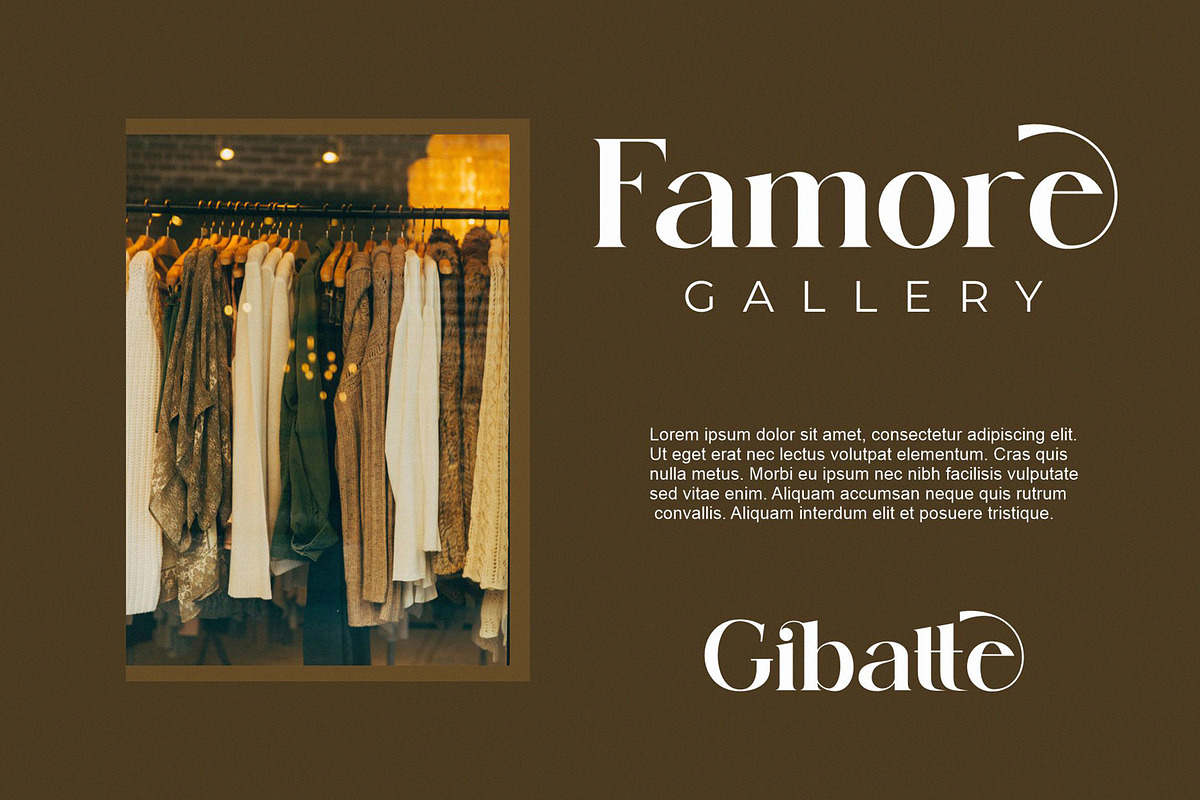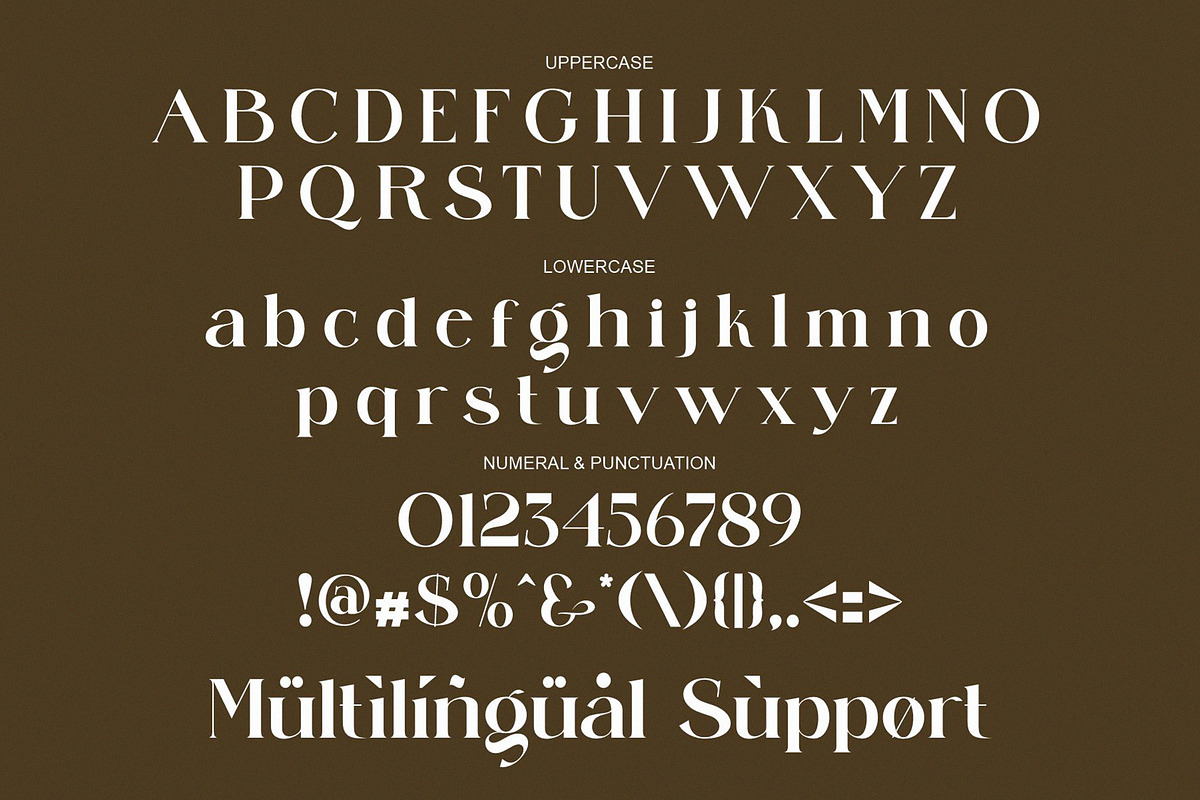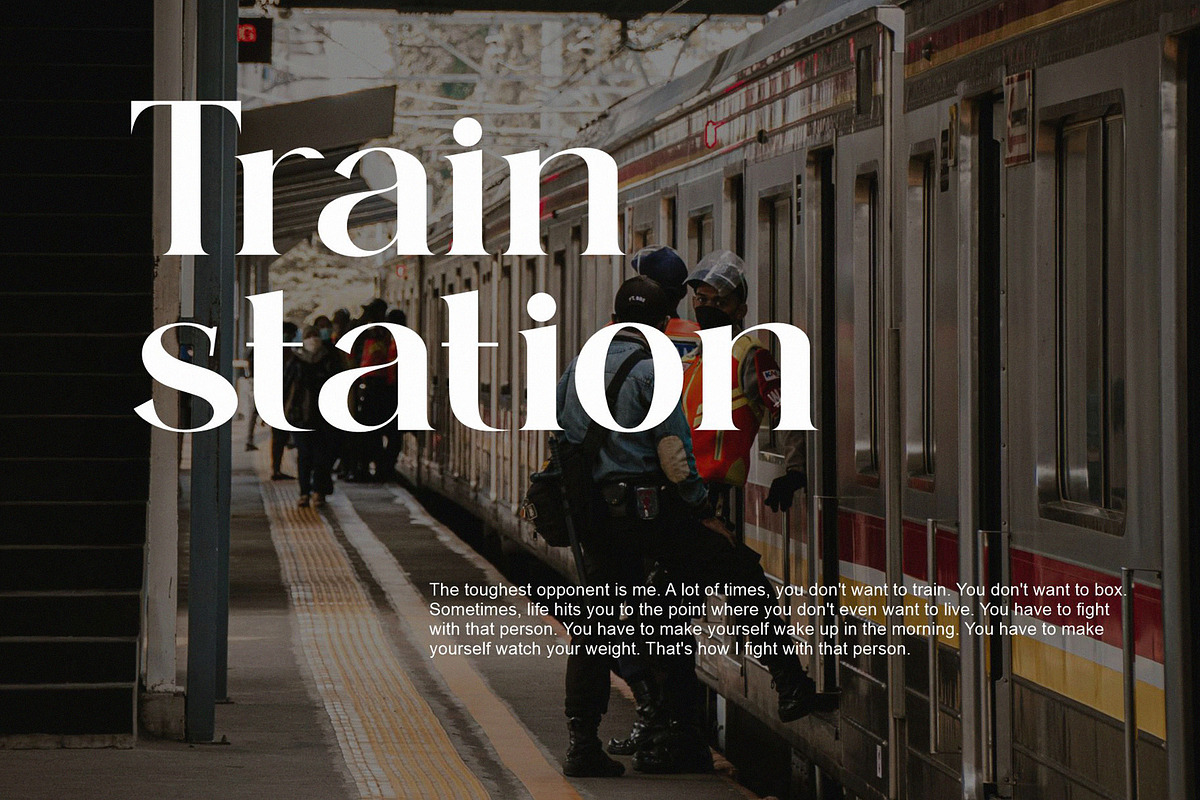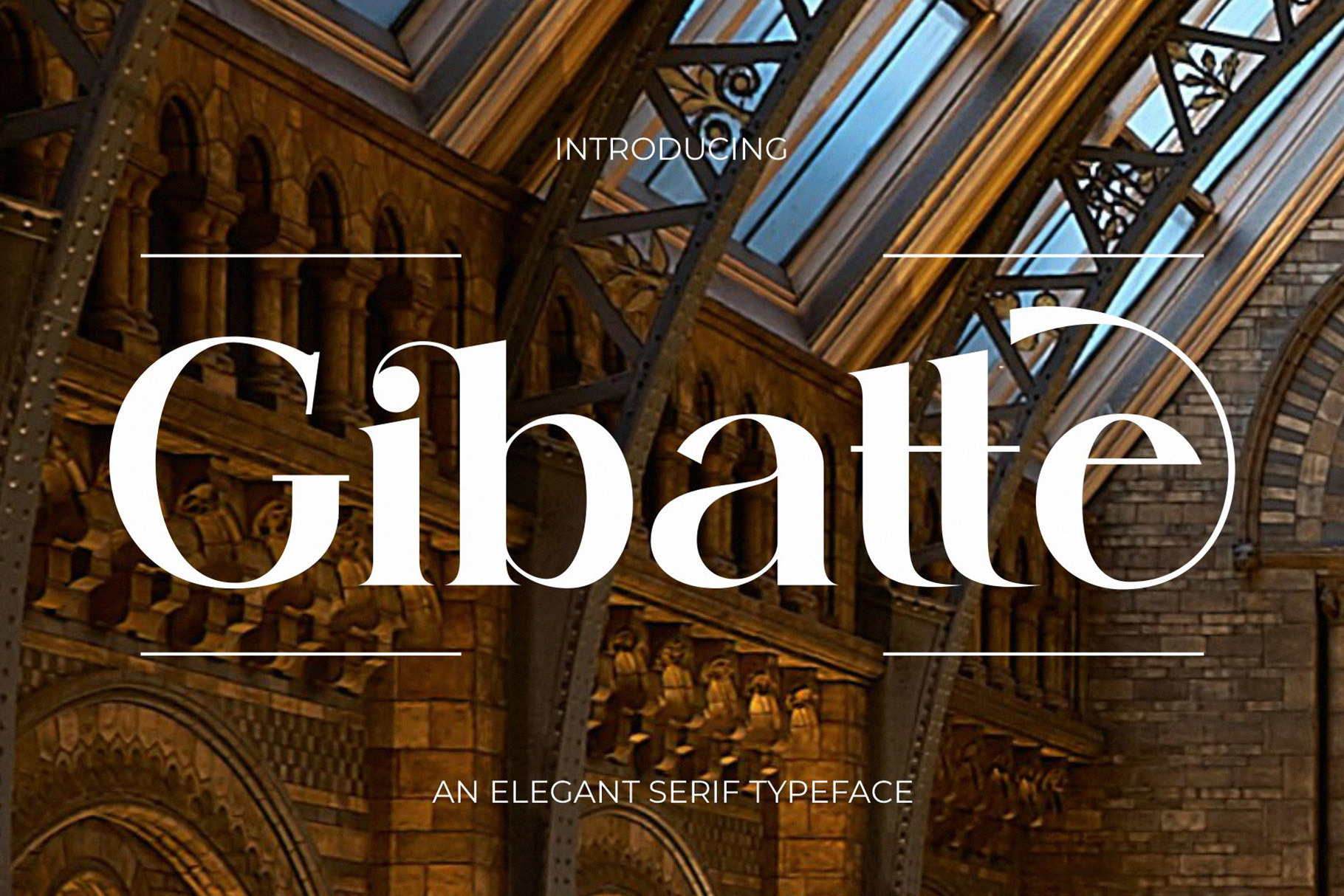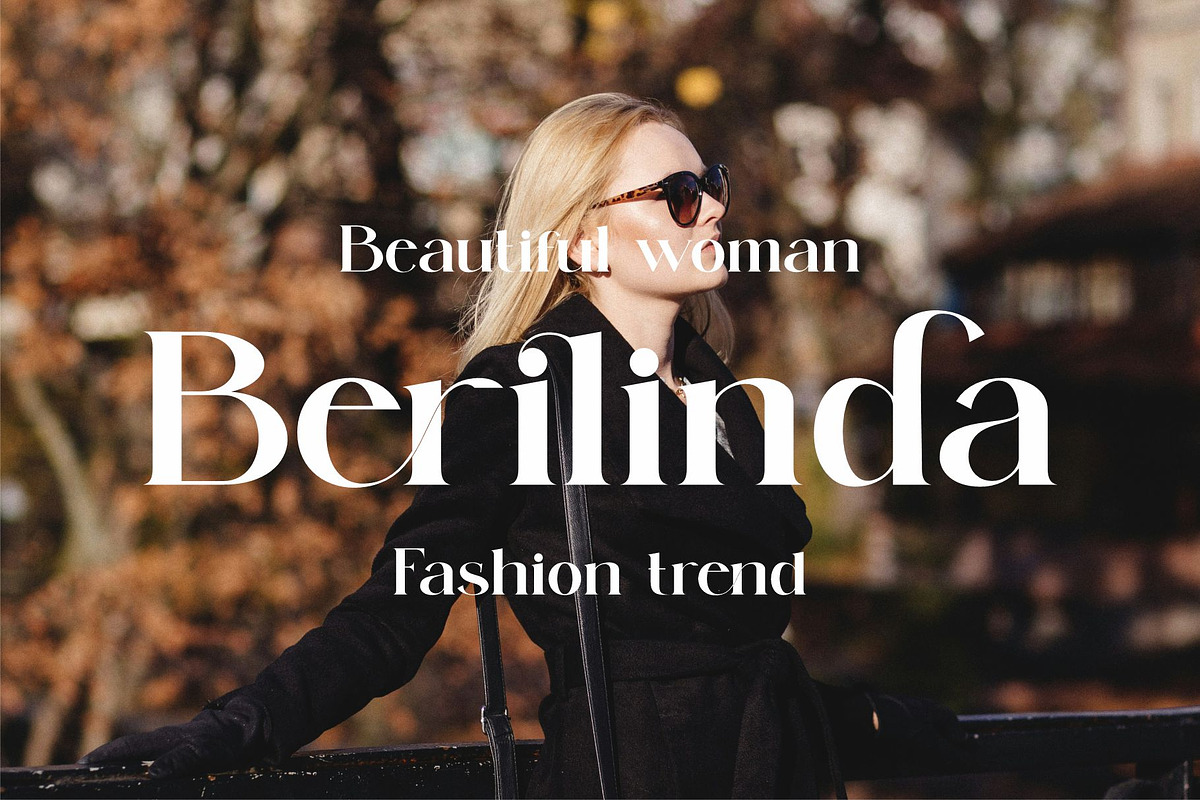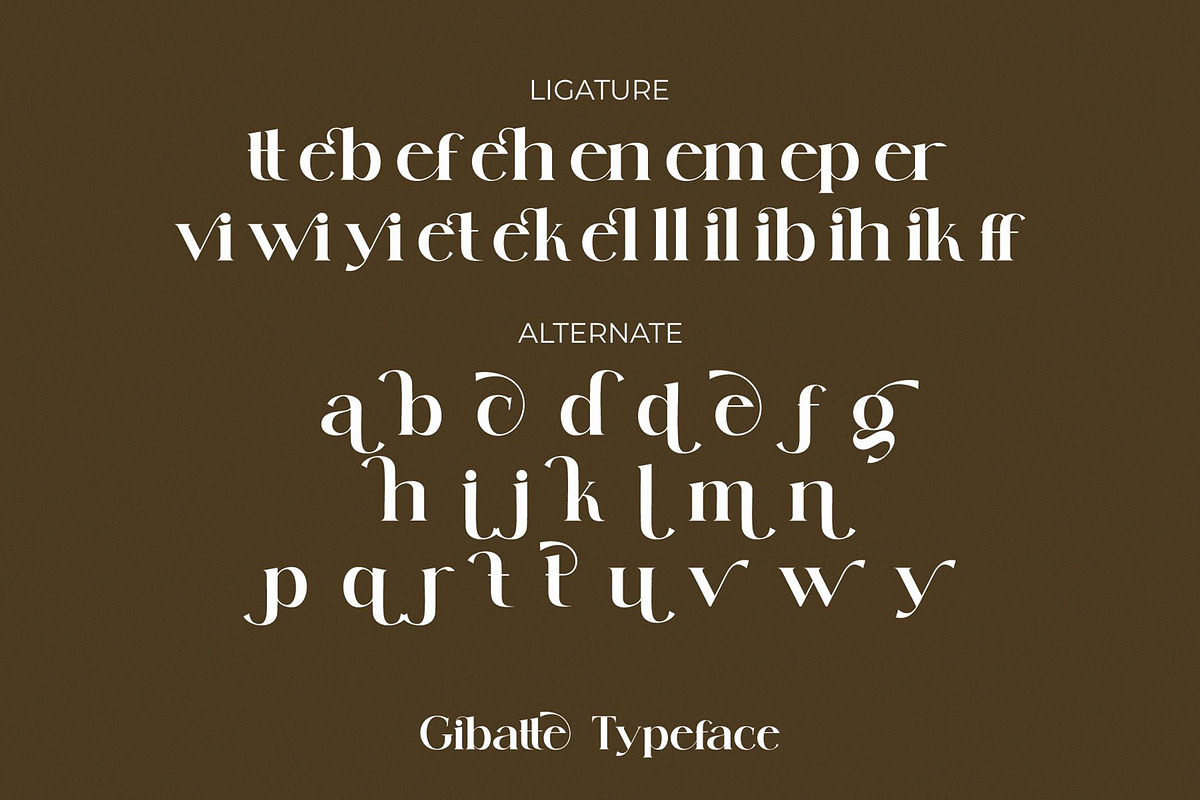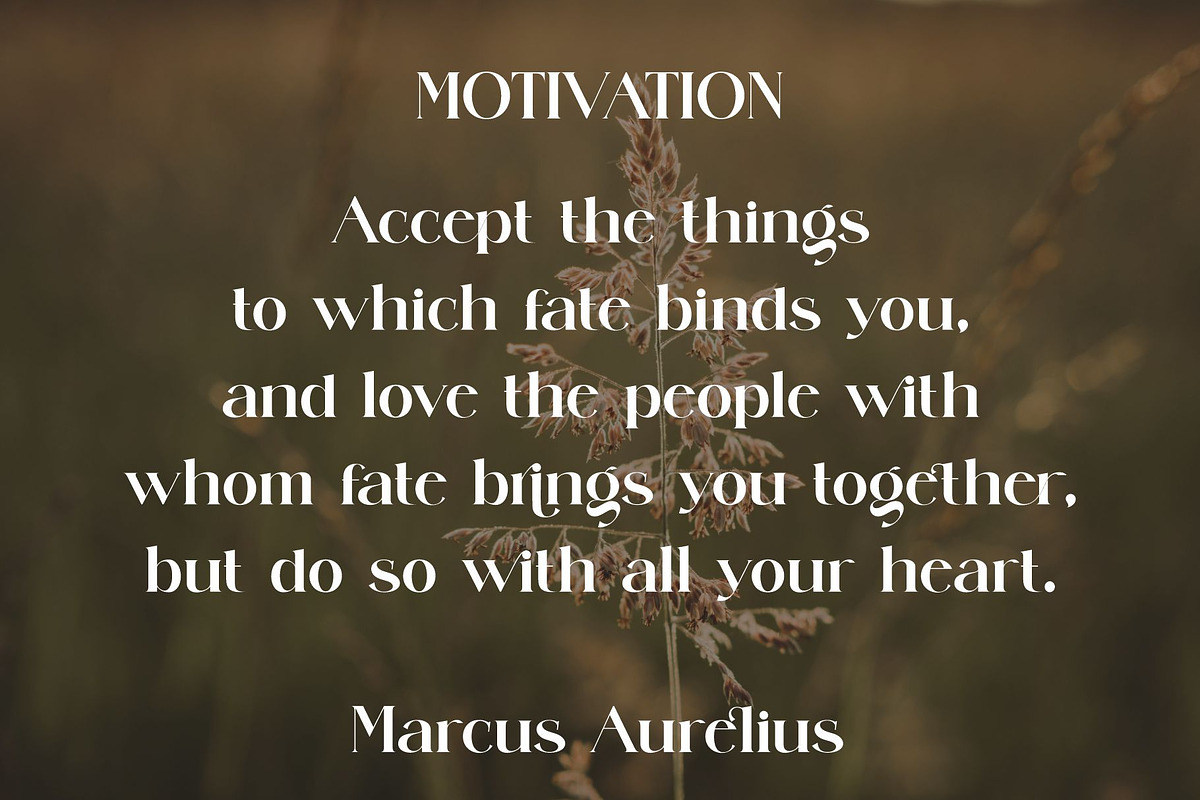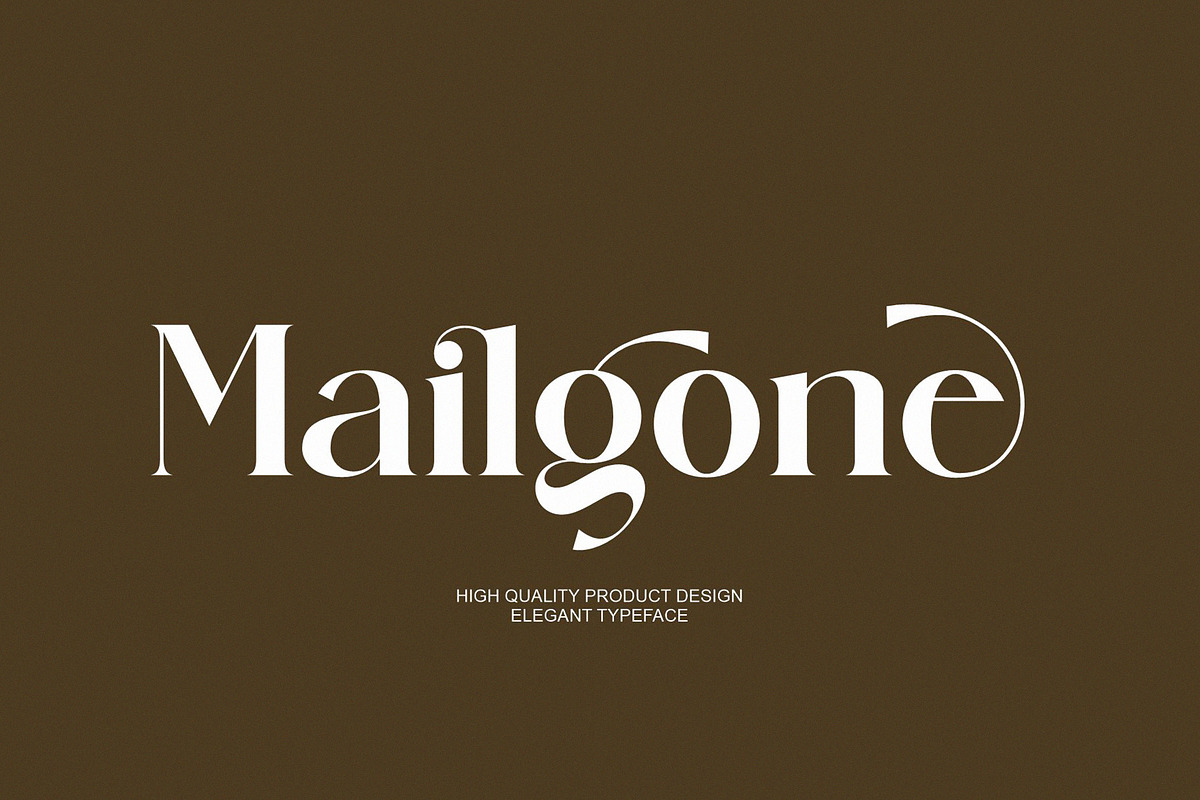
Gibatte Modern Serif Font
Gibatte Modern Serif Typeface inspired by the famous minimalist logo perfect for the purposes of designing templates, brochures, videos, advertising branding, logos, invitation, layout design, elegant crafting, beauty design and other